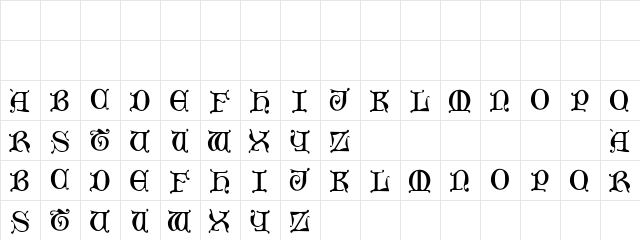
Complete Aneirin Regular glyph index. Displaying only characters natively supported by Aneirin Regular font.
Aneirin is a composed and adaptable typeface that performs quietly and consistently across a wide range of design contexts.